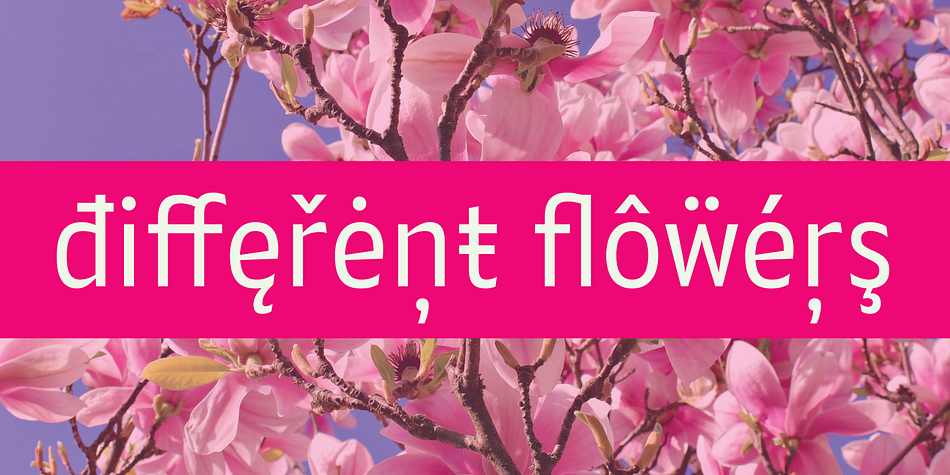
Alamia
Designed by Ani Dimitrova, Alamia is a sans serif font family. This typeface has twenty styles and was published by Ani Dimitrova.
The Alamia type family is a sans serif in 20 weights, ranging from HairLine to Black with matching italics. Each style contains more than 900 glyphs. Alamia comes with an extended coverage of the Latin and Cyrillic Script.
All weights of this family are equipped for complex, professional typography with Open Type Features including: Small Caps, Ligatures, Discretionary Ligatures, Superscript, Subscript, Tabular Figures, Old-Style Figures, Circled Figures, Arrows, Matching currency symbols and fraction.The construction of the characters combines clean grotesque style with modern, that gives the font an organic, warm and friendly touch.
The Alamia font family is a perfect choice for body text, branding design, web design, editorial design and more.